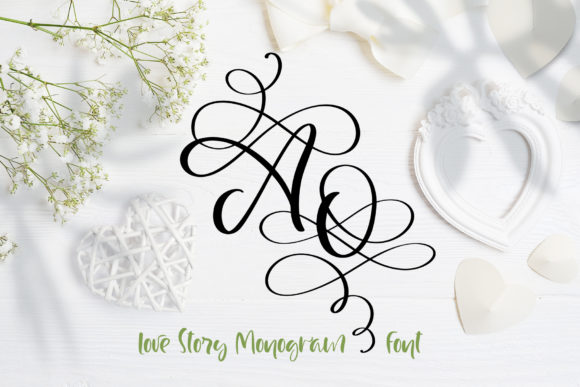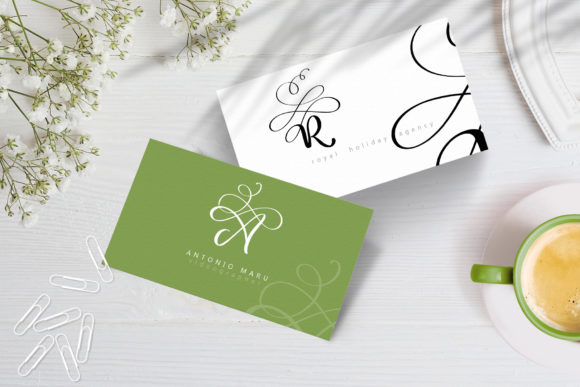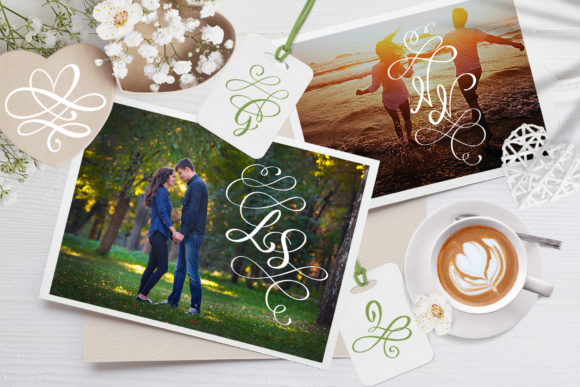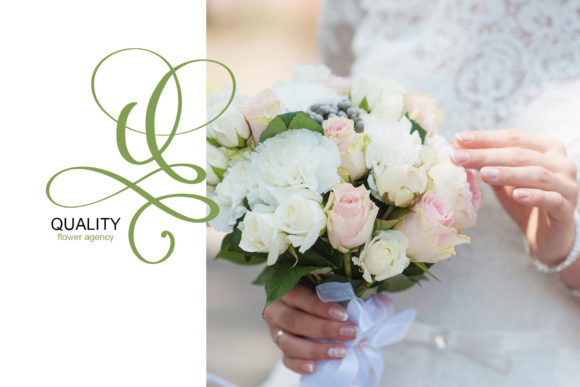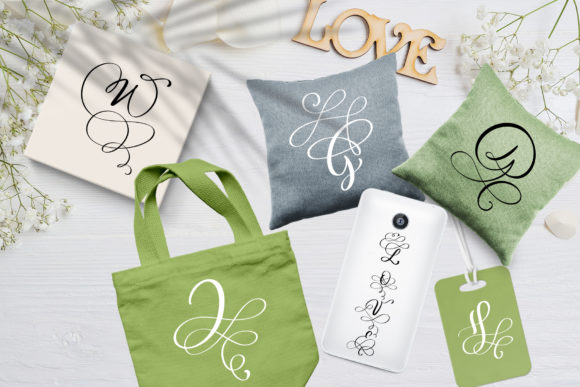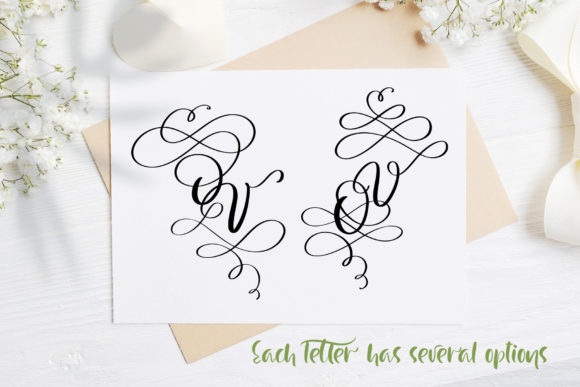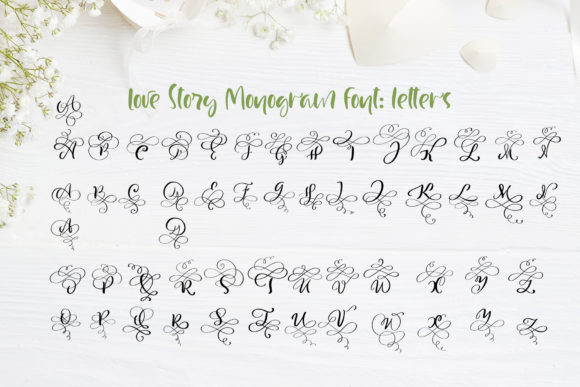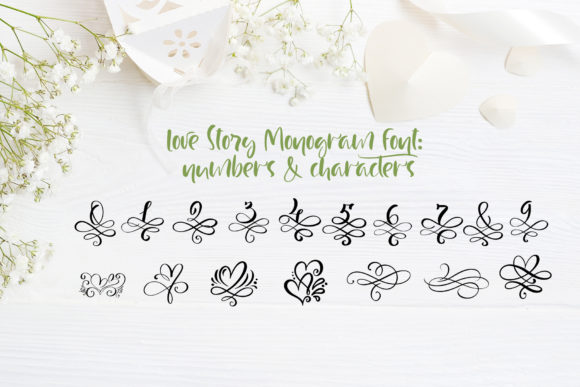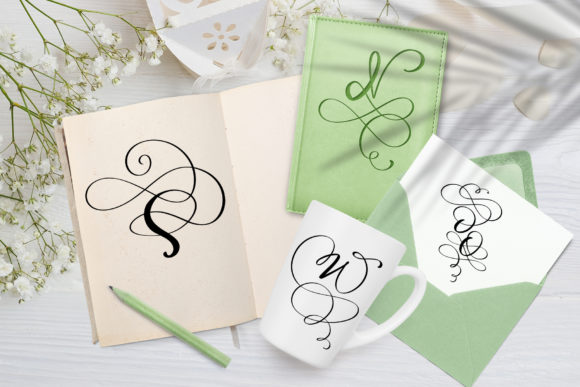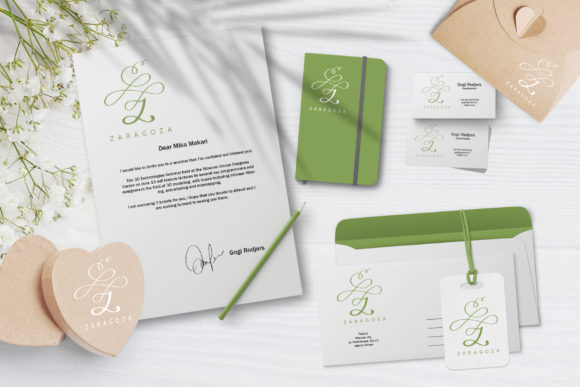
Love Story Font
About Love Story Font
Love Story is a simply incredible handwritten font with a beautiful style. It will effortlessly add a romantic twist to any design project.